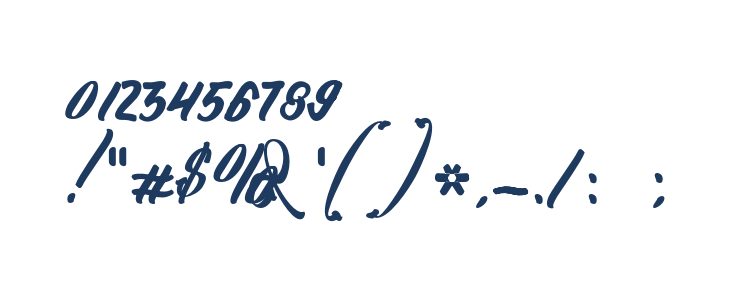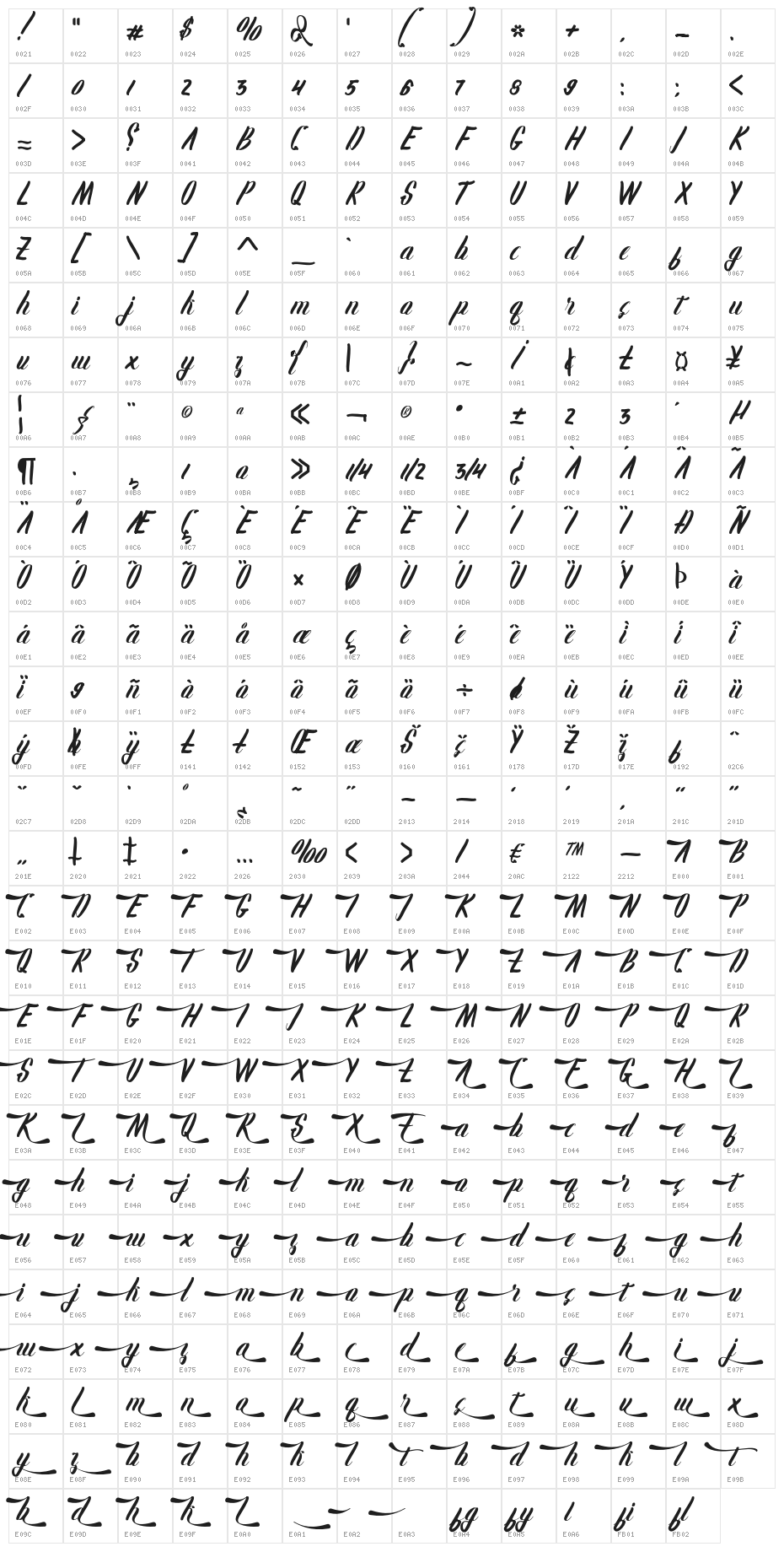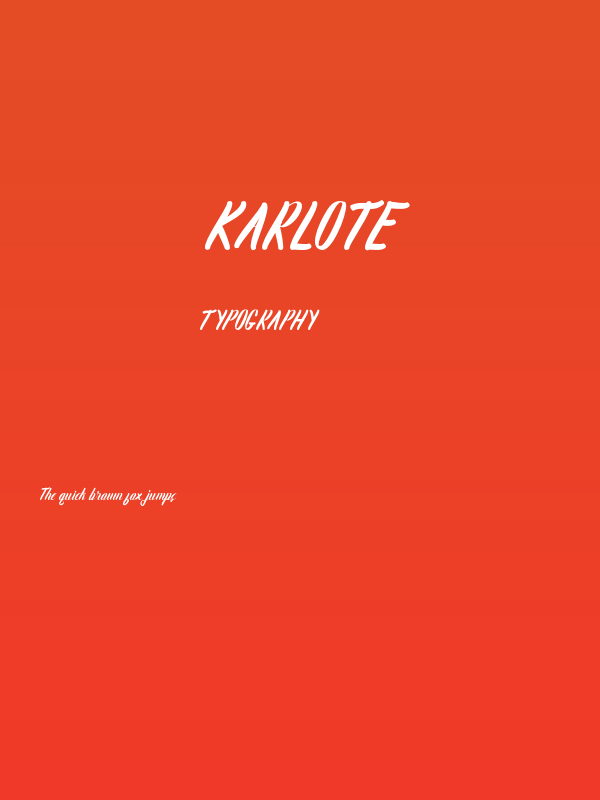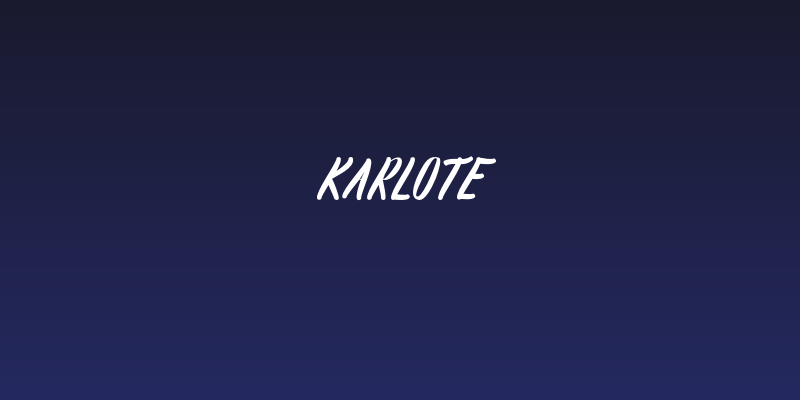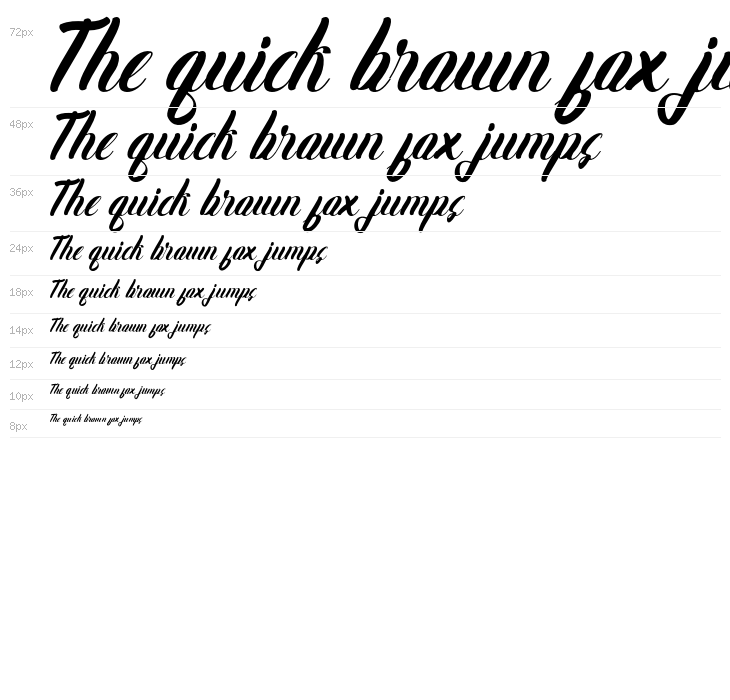
Karlote Font
Karlote Description
This font exhibits a dynamic and flowing script style, characterized by its bold and expressive strokes. The letters are connected, creating a sense of movement and fluidity. The uppercase letters maintain a consistent height, while the lowercase letters feature elegant loops and curves. The numbers and special characters are designed to match the overall aesthetic, with a playful yet sophisticated appearance. This font is ideal for projects that require a personal touch or a sense of elegance and creativity.
| Proposed Projects | Ideal for wedding invitations, branding, logo design, and artistic projects that require a personal and elegant touch. |